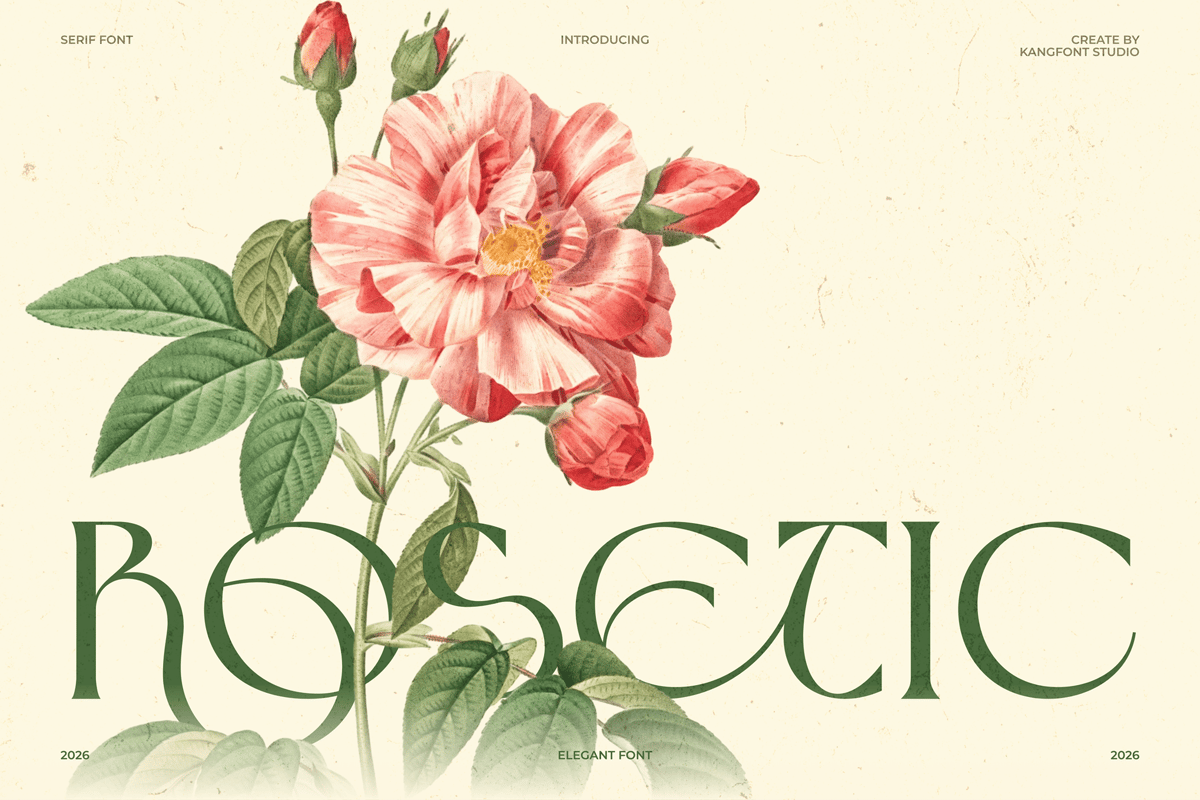
Rosetic – Elegant Serif Font
Rosetic is an elegant serif typeface that brings timeless sophistication and Art Nouveau-inspired beauty to high-end design work.
Blending classic serif structure with distinctive ligatures and refined letterforms, Rosetic gives your projects a unique, elevated aesthetic — whether you're crafting luxury branding, editorial layouts, wedding stationery, fashion lookbooks, or premium packaging.
- Full uppercase & lowercase characters (A–Z, a–z)
- Numbers (0–9)
- Punctuation & special characters (&, ?, !, @, #, $, %, *)
- Stylistic ligatures & alternates
Font Highlights:
- High-contrast thick & thin strokes
- Elegant stylistic ligatures
- Art Nouveau-inspired letterforms
- Versatile for both display and headline use